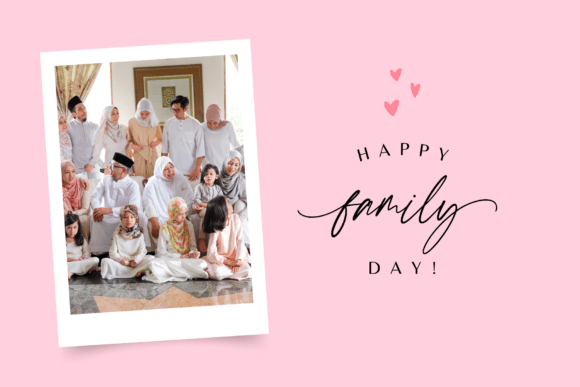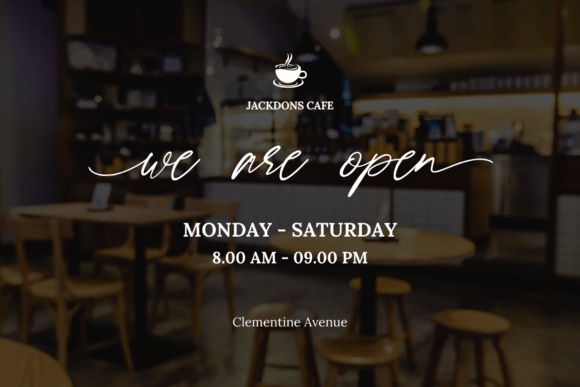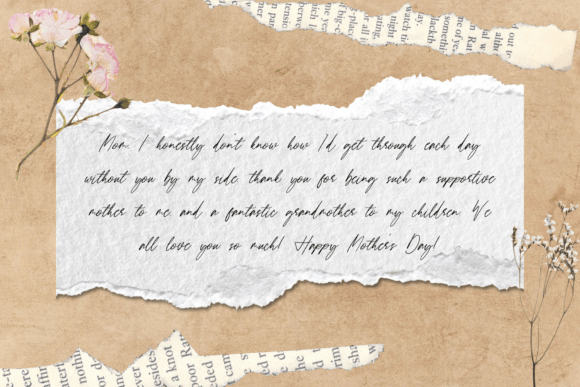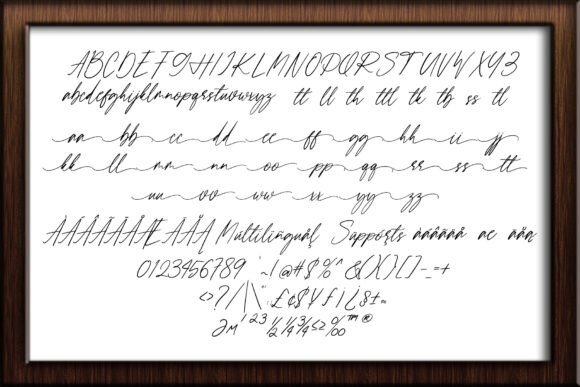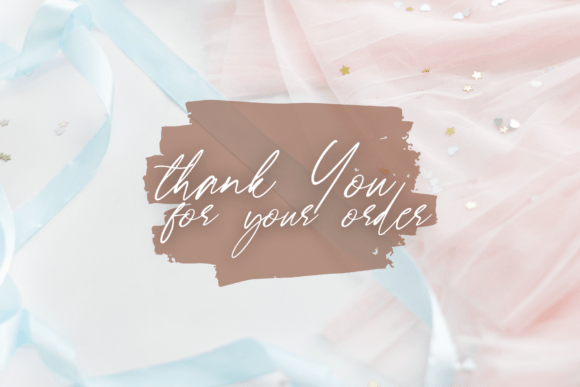
Introducing Blissary Kindora Font: The Ultimate Romantic Script Font
Are you a designer or crafter looking for a font that exudes elegance, sophistication, and whimsy? Look no further than Blissary Kindora, a romantic and flowing script font that is perfect for a variety of creative projects. With its smooth, handwritten style and modern calligraphy charm, Blissary Kindora is sure to add a personal, luxurious touch to any design.
The Characteristics of Blissary Kindora
Blissary Kindora is a beautifully crafted script font that boasts a range of impressive features. Its elegant swashes and flowing lines give it a romantic, whimsical feel that is perfect for wedding invitations, branding, social media, and high-end stationery. The font’s smooth, handwritten style ensures that it looks effortless and natural, while its modern calligraphy charm adds a touch of sophistication and glamour.
Perfect for a Variety of Creative Projects
Blissary Kindora is a versatile font that can be used for a wide range of creative projects. Its elegant, refined style makes it perfect for:
- Wedding invitations and stationery: Add a touch of romance and whimsy to your wedding invitations, save-the-dates, and other stationery with Blissary Kindora.
- Branding: Use Blissary Kindora to create a luxurious, high-end brand identity that exudes sophistication and elegance.
- Social media: Add a personal, creative touch to your social media posts and stories with Blissary Kindora.
- High-end stationery: Use Blissary Kindora to create beautiful, bespoke stationery that is perfect for luxury brands and individuals.
The Benefits of Blissary Kindora
So why choose Blissary Kindora for your next creative project? Here are just a few benefits of using this beautiful script font:
- Elegant and sophisticated: Blissary Kindora adds a touch of elegance and sophistication to any design, making it perfect for high-end brands and individuals.
- Versatile: Blissary Kindora can be used for a wide range of creative projects, from wedding invitations to branding and social media.
- Easy to use: Blissary Kindora is PUA-encoded, ensuring effortless access to all glyphs, swashes, and alternate characters.
- Customizable: With Blissary Kindora, you can easily customize your creations with a range of glyphs, swashes, and alternate characters.
The Technical Details of Blissary Kindora
Blissary Kindora is a beautifully crafted script font that boasts a range of impressive technical features. Here are just a few key details:
- PUA-encoded: Blissary Kindora is PUA-encoded, ensuring effortless access to all glyphs, swashes, and alternate characters.
- Script font: Blissary Kindora is a script font that features elegant swashes and flowing lines.
- Modern calligraphy charm: Blissary Kindora boasts a modern calligraphy charm that adds a touch of sophistication and glamour to any design.
In conclusion, Blissary Kindora is a romantic and flowing script font that is perfect for designers and crafters looking to add a touch of elegance and sophistication to their creative projects. With its smooth, handwritten style and modern calligraphy charm, Blissary Kindora is sure to impress. Its versatility, ease of use, and customizable features make it a must-have font for anyone looking to create beautiful, bespoke designs.